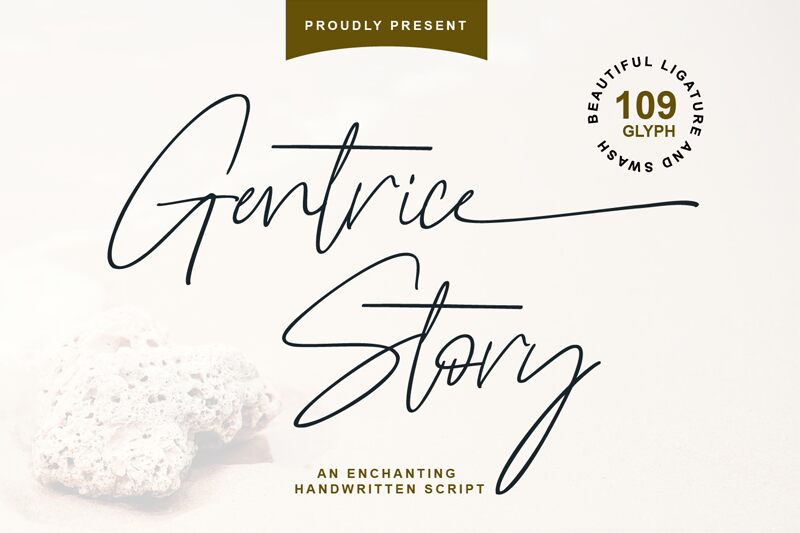
Gentrice Story is a thin, signature-style handwritten font designed by Farida Kurniawan. It's perfect for adding a personal touch to your designs, from wedding invitations and greeting cards to branding projects and social media posts.